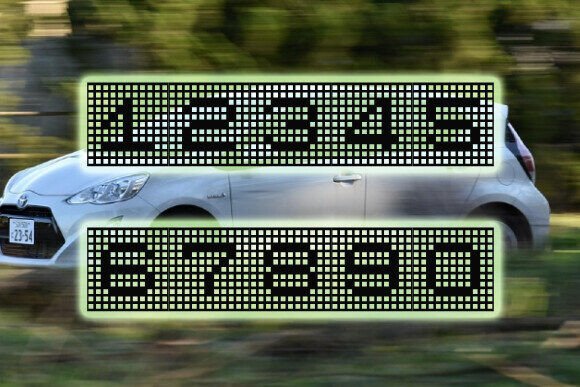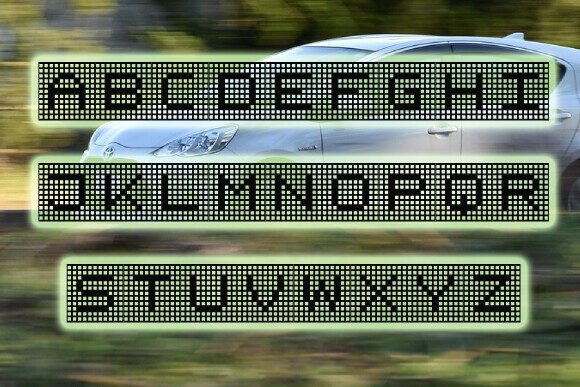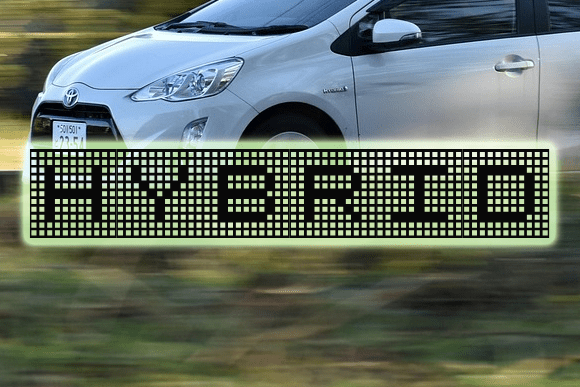
Introducing Energized Font: The Ultimate Stylish LCD Font for Your Designs
Are you tired of using the same old fonts for your designs? Look no further! Energized Font is here to revolutionize the way you create. This stylish LCD font is perfect for adding a touch of modernity and sophistication to any design. In this article, we’ll dive into the features and benefits of Energized Font, and explore how you can use it to take your designs to the next level.
What is Energized Font?
Energized Font is a unique and stylish LCD font that is designed to make your designs stand out. Its sleek and modern design makes it perfect for a wide range of applications, from posters and flyers to t-shirts and digital graphics. With its energizing and futuristic look, this font is sure to grab attention and leave a lasting impression.
Key Features of Energized Font
- Stylish LCD Design: Energized Font boasts a stylish LCD design that is both modern and eye-catching.
- High Versatility: This font can be used on a wide range of designs, including posters, flyers, t-shirts, and digital graphics.
- Easily Readable: Despite its stylized design, Energized Font remains easily readable, making it perfect for headlines and titles.
- Unique and Exclusive: Energized Font is a one-of-a-kind font that will set your designs apart from the rest.
How to Use Energized Font in Your Designs
Energized Font is incredibly easy to use and can be incorporated into your designs in a variety of ways. Here are a few ideas to get you started:
- Posters and Flyers: Use Energized Font as a headline font to grab attention and draw people in.
- T-Shirts and Merchandise: Add a touch of style to your t-shirts and merchandise with Energized Font.
- Digital Graphics: Use Energized Font in your digital graphics, such as social media posts and website headers, to add a modern touch.
Benefits of Using Energized Font
So why choose Energized Font for your designs? Here are just a few benefits:
- Increased Visibility: Energized Font is designed to grab attention and increase visibility.
- Improved Brand Image: Using a unique and stylish font like Energized Font can help to improve your brand image and make your designs stand out.
- Easier Design Process: With Energized Font, you can create professional-looking designs in no time.
Tips and Tricks for Getting the Most Out of Energized Font
Here are a few tips and tricks for getting the most out of Energized Font:
- Experiment with Different Sizes: Don’t be afraid to experiment with different sizes and styles to find the perfect look for your design.
- Pair with Other Fonts: Try pairing Energized Font with other fonts to create a unique and eye-catching combination.
- Use on Different Backgrounds: Experiment with using Energized Font on different backgrounds to find the perfect contrast.
In conclusion, Energized Font is a stylish and modern LCD font that is perfect for adding a touch of sophistication to any design. With its high versatility, easily readable design, and unique look, this font is sure to take your designs to the next level. Whether you’re a designer, crafter, or simply someone looking to add a touch of style to your projects, Energized Font is the perfect choice.